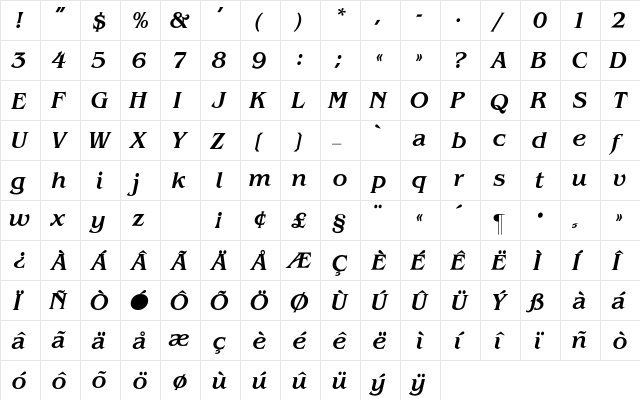
Benguiat-MediumItalic Regular Font Preview
Benguiat-MediumItalic Regular
Design Context for Benguiat-MediumItalic Typeface
Benguiat-MediumItalic takes a measured approach to typography — its balanced proportions and neutral character make it a reliable workhorse for both digital and print work. Its italic angle brings a sense of urgency and motion to the letterforms.
Pro Tip: Use Benguiat-MediumItalic for emphasis, pull quotes, and subheadings where its slanted energy can add rhythm to the layout.